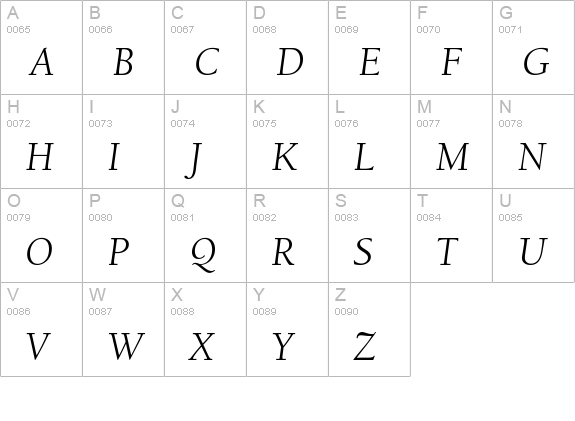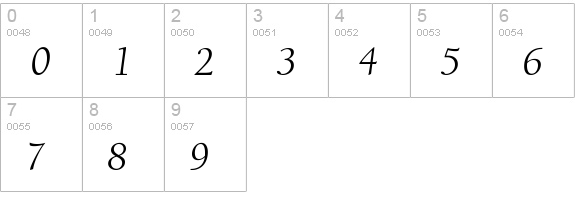
BerkeleyOldStyleEF-BookItalic font is a classic and elegant typeface that exudes sophistication and charm. Its slanted italic style adds a touch of style and flair to any design project. With its timeless appeal and graceful curves, this font is perfect for conveying a sense of tradition and refinement. What makes BerkeleyOldStyleEF-BookItalic font even more appealing is the fact that it is available for free download at FontsMarket.com. You can easily access this beautiful typeface and use it in your projects without any cost. Whether you're working on a formal invitation, a vintage-inspired poster, or a stylish logo, BerkeleyOldStyleEF-BookItalic font will elevate your design and give it a touch of class. Download it today and add a touch of elegance to your creations.